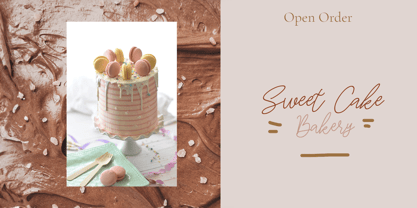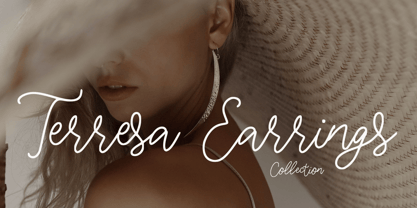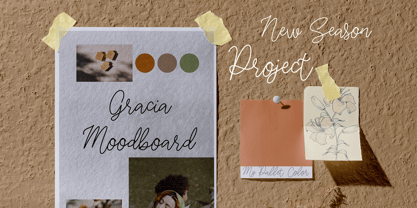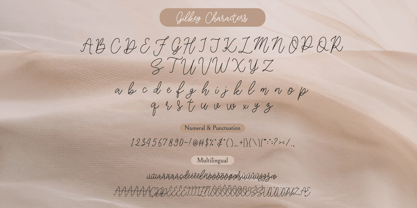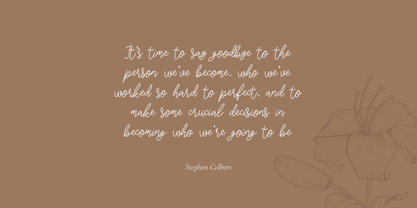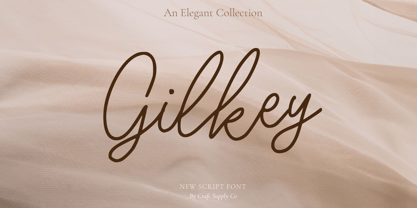
Gilkey
by Craft Supply Co
The Gilkey Font Family was designed by Trio Nazzar Saputra, Wahyu Hadi Yuana and published by Craft Supply Co. Gilkey contains 2 styles and family package options.
Gilkey – Elegant Script is a moniline script font with handwriting style. Gilkey – Elegant Script will work perfectly for fashion, e-commerce brands, trend blogs, wedding boutiques or any business that wants to appear upscale and chic.
Gilkey – Elegant Script also Suitable for Logo, greeting cards, quotes, posters, branding, name card, stationary, design title, blog header, art quote, typography, art, modern envelope lettering or book design, happening style like handdrawn design or watercolor design theme, craft design, any DIY project, book title, or any purpose to make your art/design project look pretty and trendy.
Designers: Trio Nazzar Saputra, Wahyu Hadi Yuana
Publisher: Craft Supply Co
Foundry: Craft Supply Co
Design Owner: Craft Supply Co